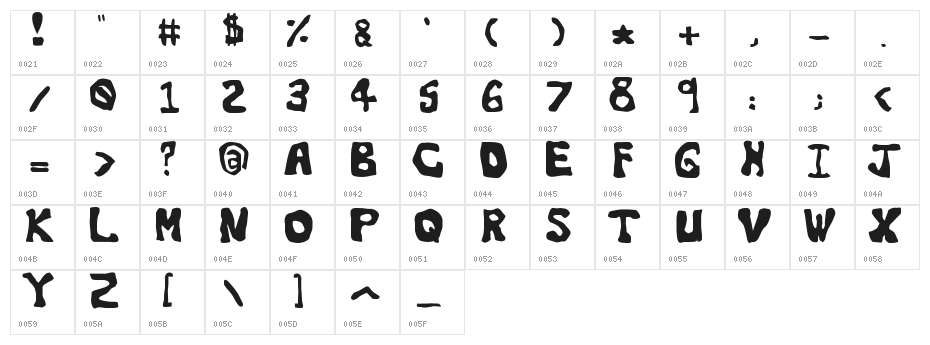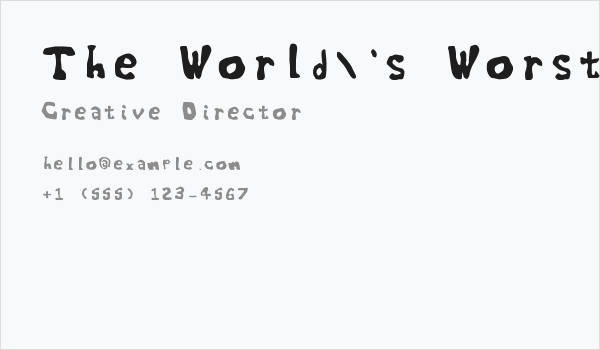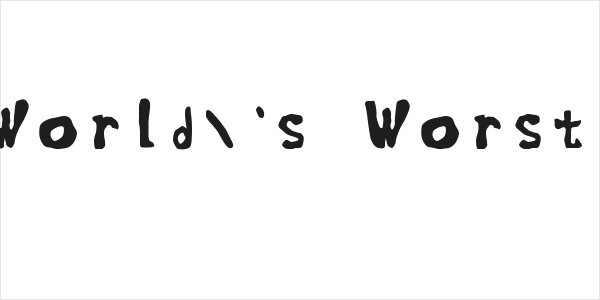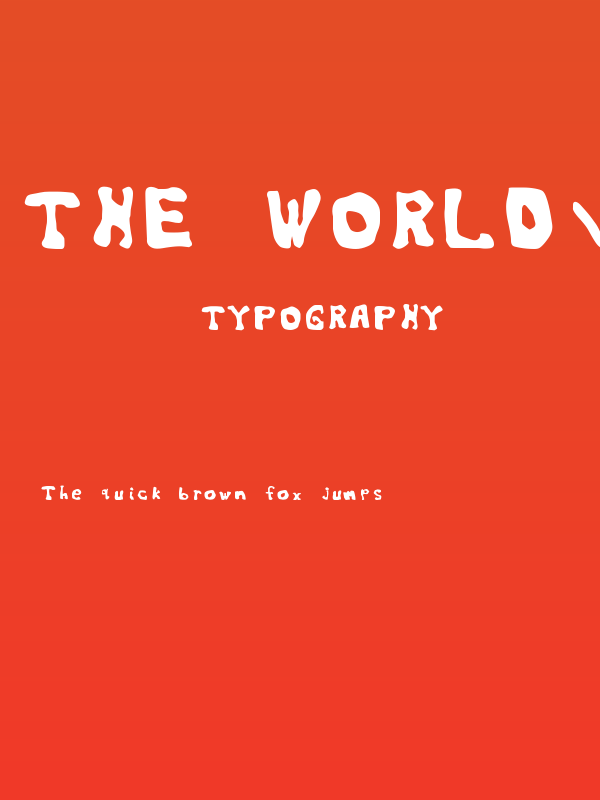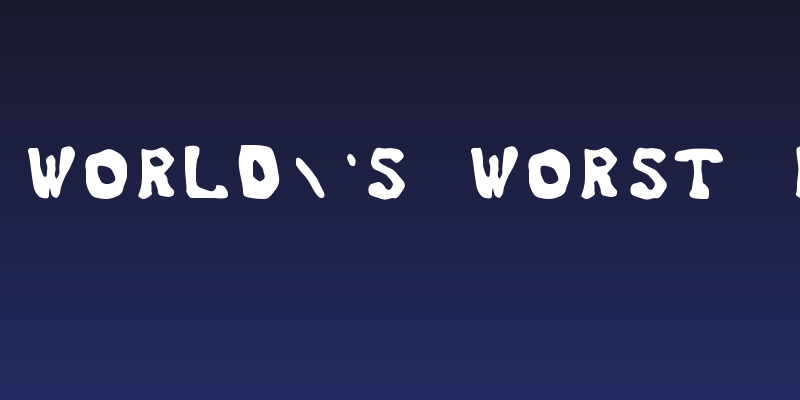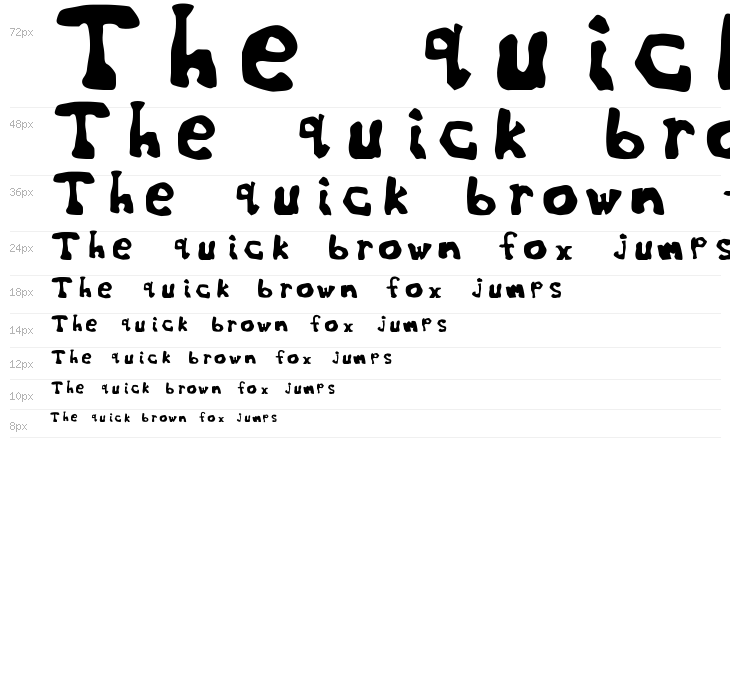
The World's Worst Font Font
The World's Worst Font Description
This font features a highly irregular and playful design, with each character appearing to be hand-drawn with a thick marker. The letters have uneven edges and varying thicknesses, giving them a whimsical and chaotic appearance. The uppercase and lowercase letters are distinct, with exaggerated curves and angles that create a sense of movement. Numbers and special characters follow the same quirky style, adding to the overall playful aesthetic. The font's unique style makes it stand out, but its legibility may be compromised due to the inconsistent shapes and sizes of the characters.
| Use Case | Headlines, Posters, Informal Invitations |
| Proposed Projects | Ideal for children's book covers, playful posters, or any project requiring a fun and informal touch. |